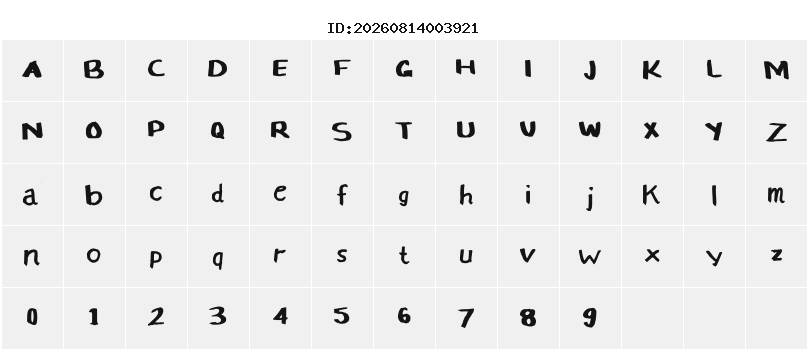
Symufa_Bold_Flow Preview
• Font Name: Symufa_Bold_Flow
• Font ID: FontForge 2.0 : SymufaFlow Regular : 27-3-2016
• Full Font Name: SymufaFlow Regular
• Version: Version 2
• PostScript Name: SymufaFlow
• Character Count: 87
About Symufa_Bold_Flow.ttf
Symufa_Bold_Flow.ttf is a modern, elegant sans-serif font designed for ultimate readability and visual harmony. Perfect for branding, headlines, web design, and print materials.